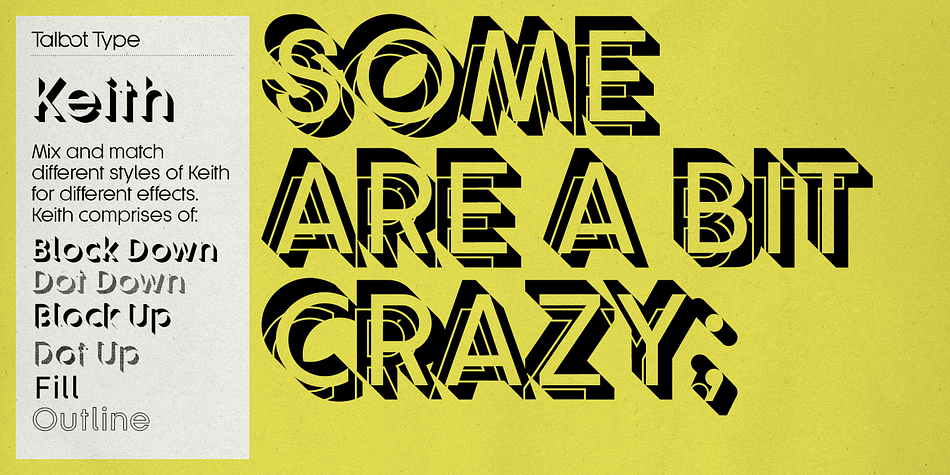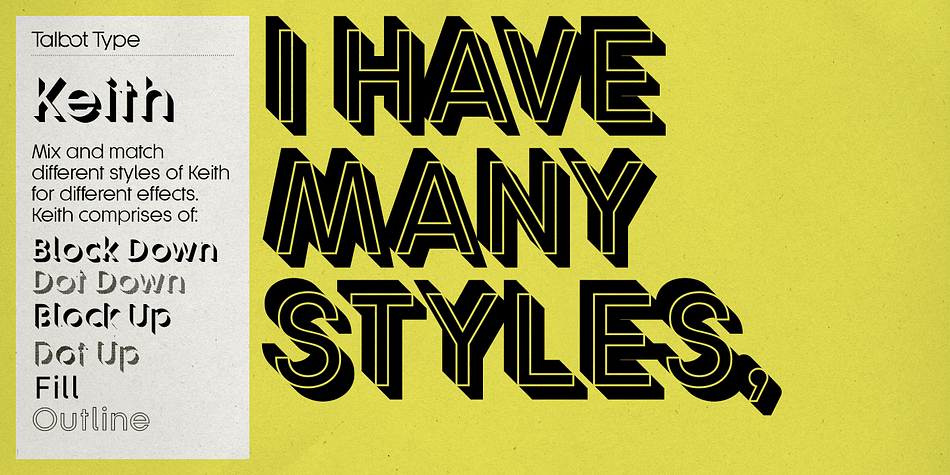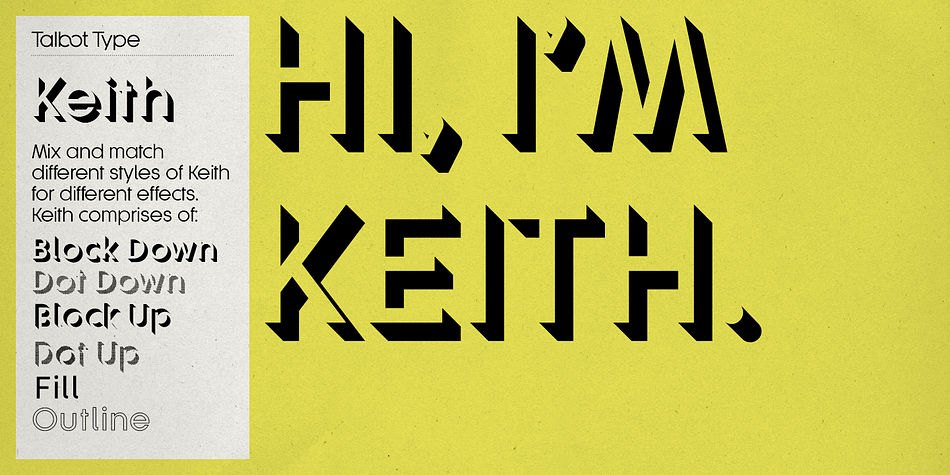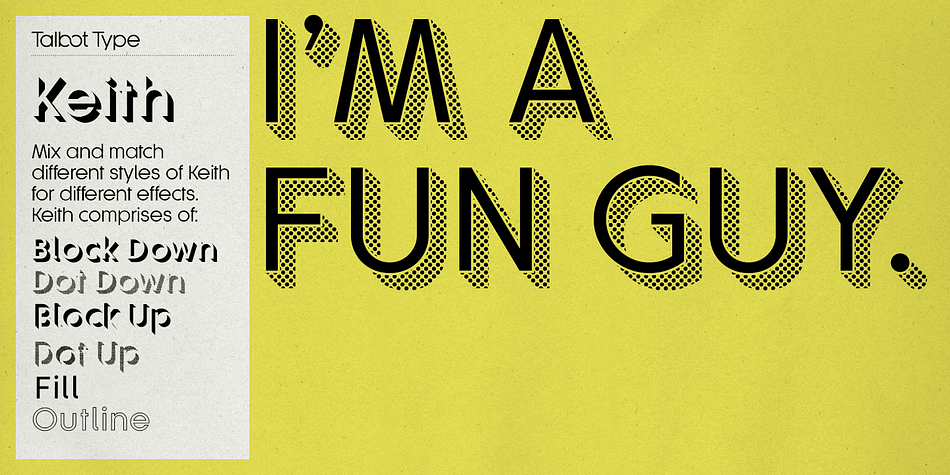
Keith is a display sans font family. This typeface has six styles and was published by Talbot Type.
Keith is a striking and playful display font. Mix and match the different shadow styles, to create a variety of different looks and effects. There are four different shadow effects, along with a fill and an outline variation. Keith features a full upper and lower case character set and an extended set of accented characters for Central European languages.